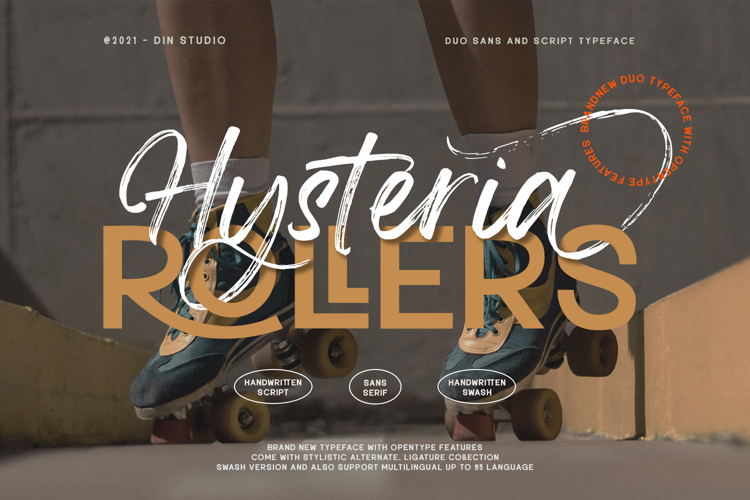
Hysteria Rollers Font
Script Style
Product Description :
Hysteria Rollers is a fantastic font duo. The duo consists of an uppercase sans serif font accompanied by a gorgeous handcrafted script brush font that works together in a perfect harmony. Designed primarily as a captivating font to add the right amount of modernity and style. This font duo is an excellent choice
to ensure a great font match for your designs and projects!
Features include:
• Alternates
• Ligatures
• Stylistic Sets
• Swashes
• Multilingual Supports
• PUA Encoded
• Numerals and Punctuations